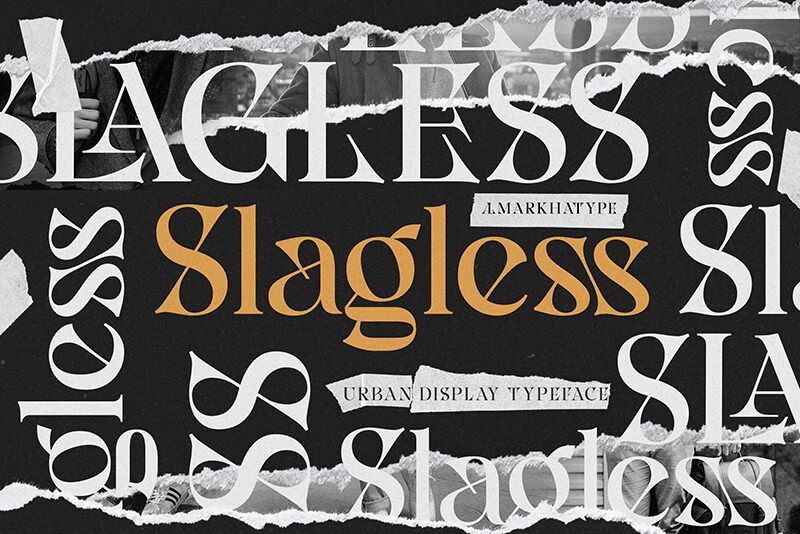
Slagless
Slagless, a serif typeface crafted by Almarkhatype, emerges as a distinctive choice for designers seeking to meld classic elegance with contemporary boldness. With its semi-bold weight, this font strikes an exquisite balance between impactful presence and readable clarity.
The Slagless typeface boasts serifs that exude character and sophistication. Its letterforms display a dynamic contrast in stroke width, infusing text with depth and a subtle nod to traditional typography. Yet, the font's modern flair is evident in the sleek curves and sharp finishes that give it a fresh appeal.
Visually arresting, Slagless offers versatility for various design applications ranging from editorial layouts to branding projects. Its stately serifs make it an ideal candidate for headlines that demand attention, while its semi-bold stance ensures legibility even at smaller sizes.
Incorporating Slagless into your creative work promises not only to enhance aesthetic value but also to convey messages with both refinement and confidence. Whether on print or digital platforms, this font is poised to leave an indelible mark on your audience.